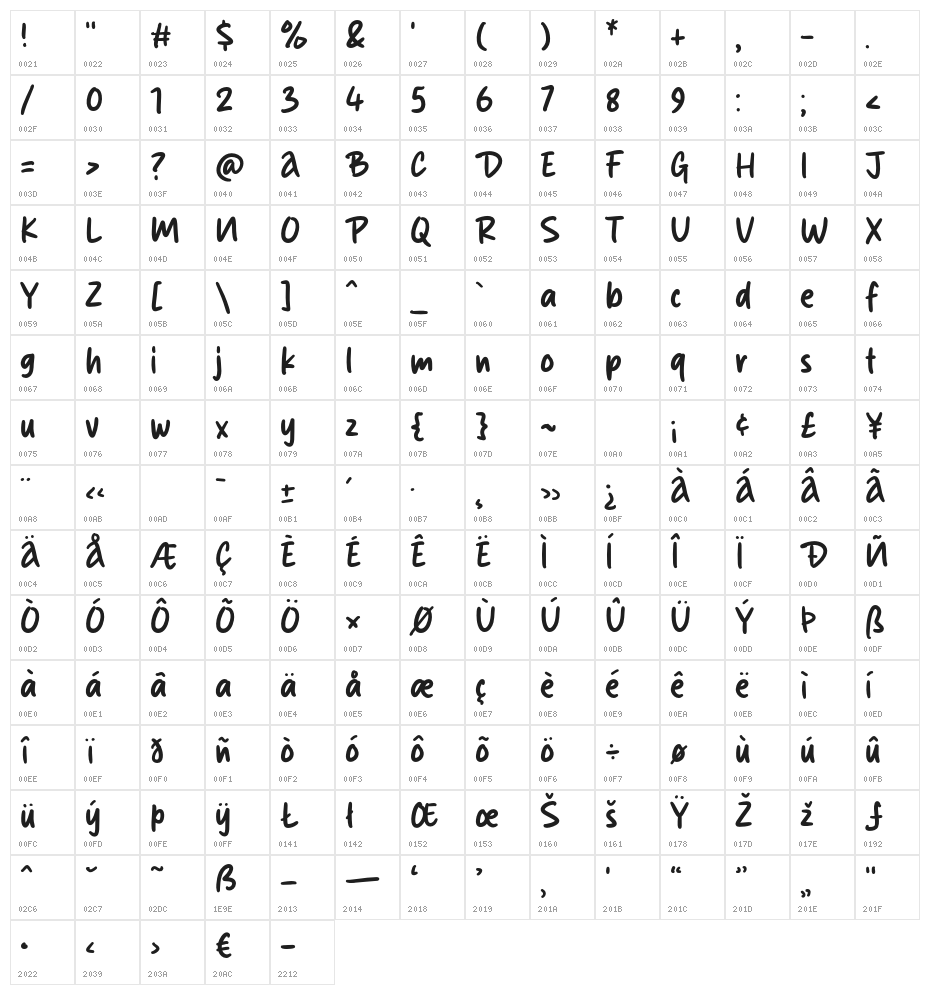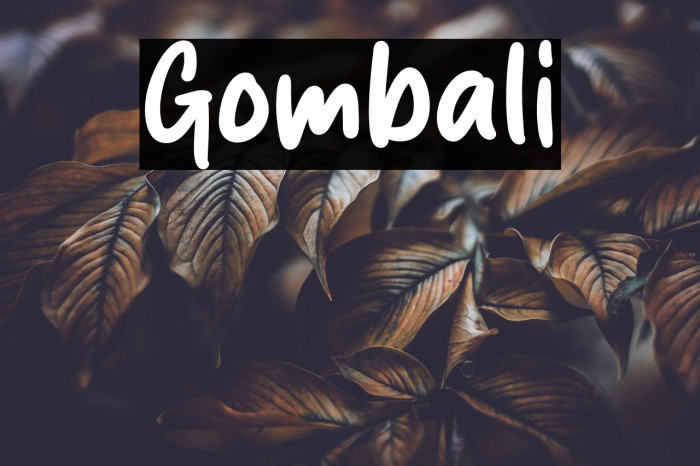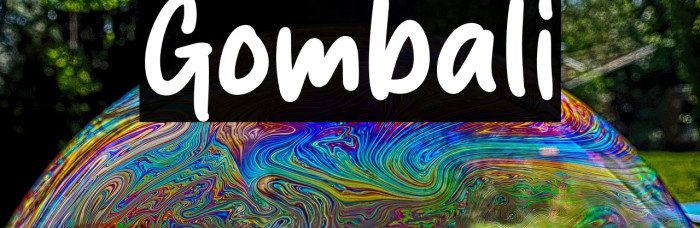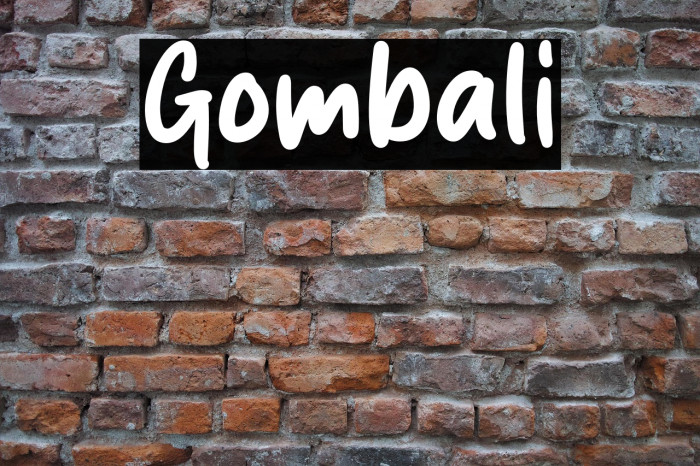
Gombali Font
Gombali Description
This font exudes a playful and energetic vibe, characterized by its bold and rounded letterforms. The strokes are consistent in thickness, giving it a uniform appearance that enhances readability while maintaining a casual, handwritten feel. The uppercase and lowercase letters are well-balanced, with a slight slant that adds dynamism to the text. The numbers and special characters are crafted with the same attention to detail, ensuring a cohesive look across all elements. This font is perfect for projects that require a personal touch, such as invitations, greeting cards, or playful branding.
| Overall Style | Playful, Casual |
| Use Case | Headlines, Logos, Casual Text |
| Proposed Projects | Ideal for invitations, greeting cards, playful branding, and casual posters. |